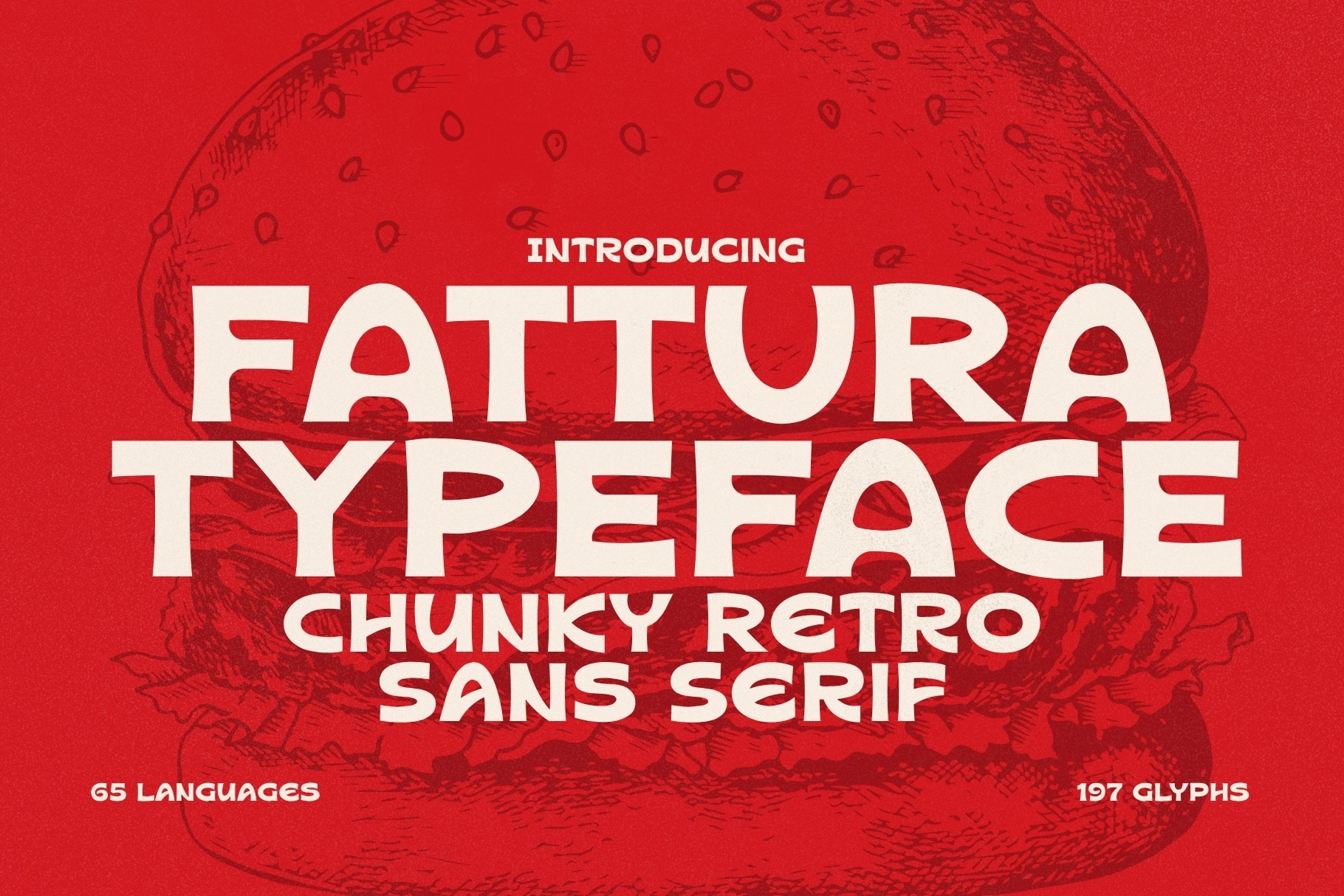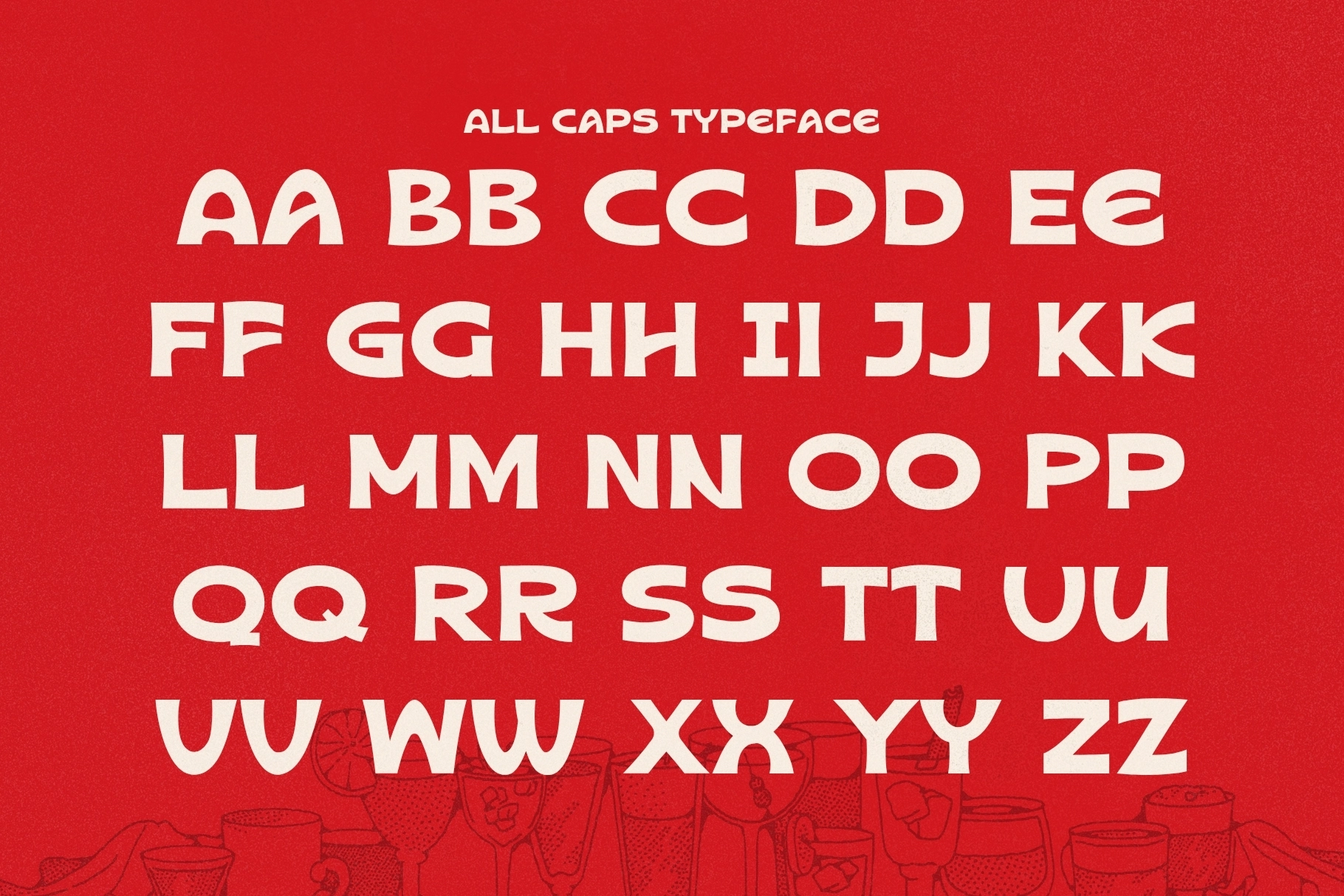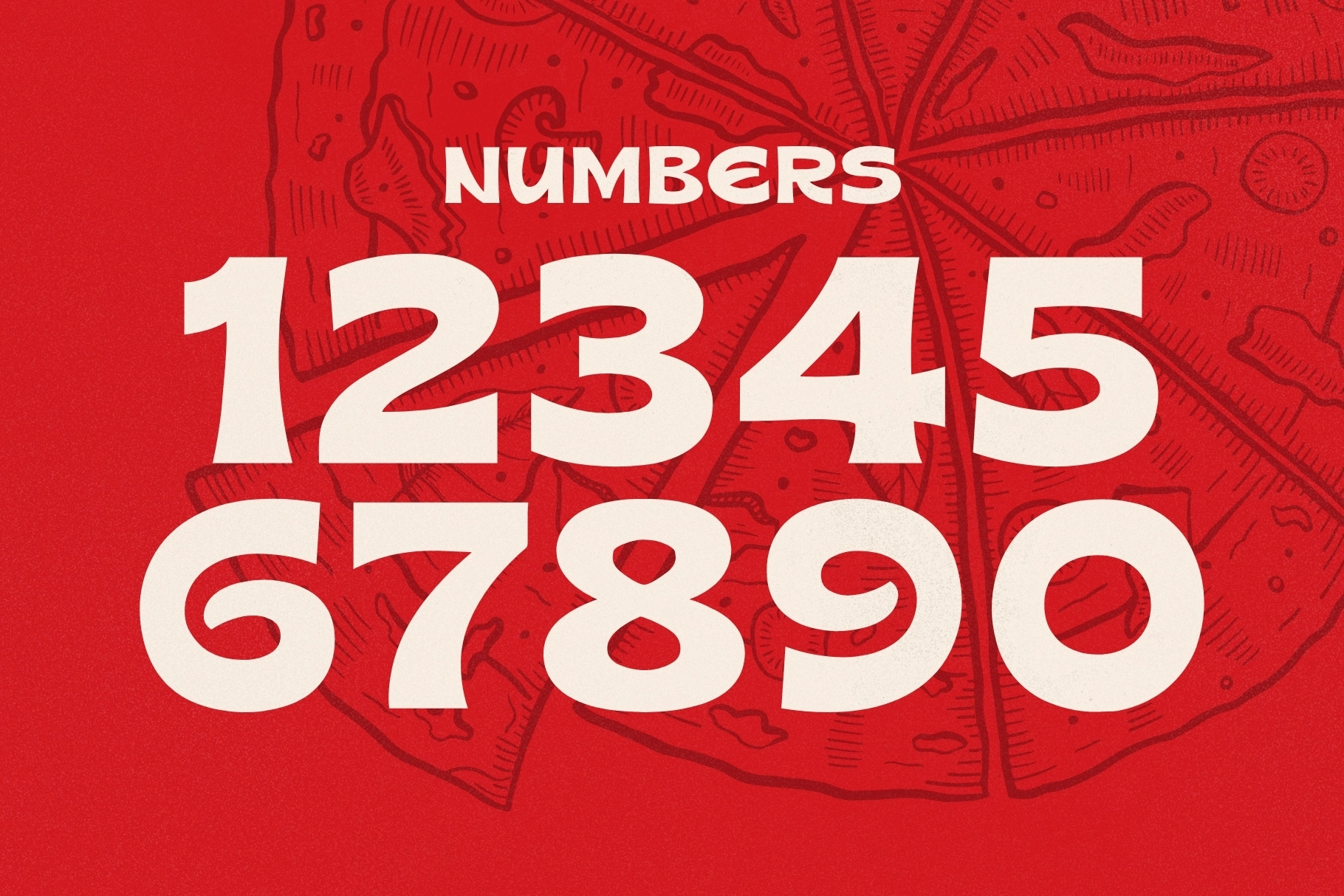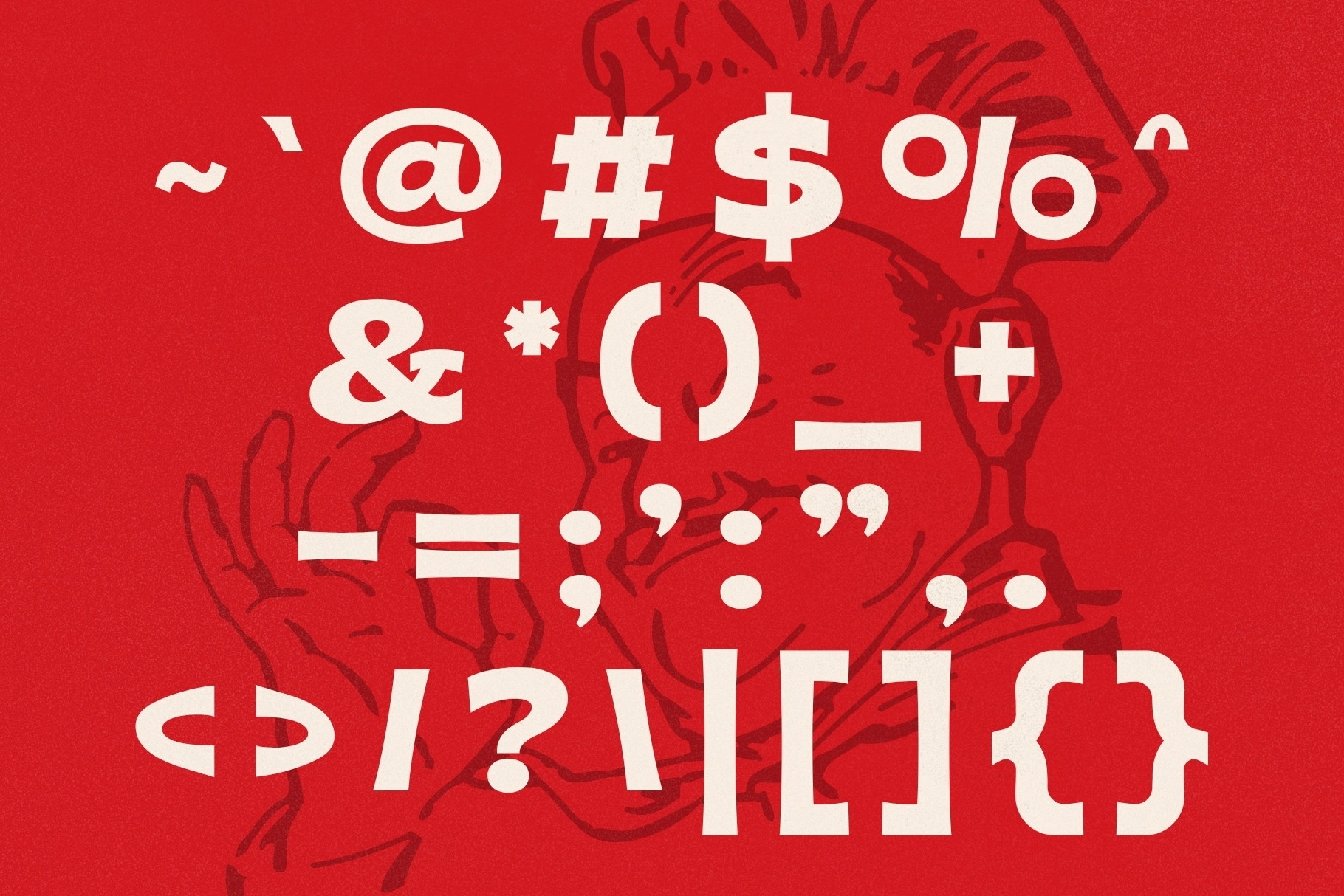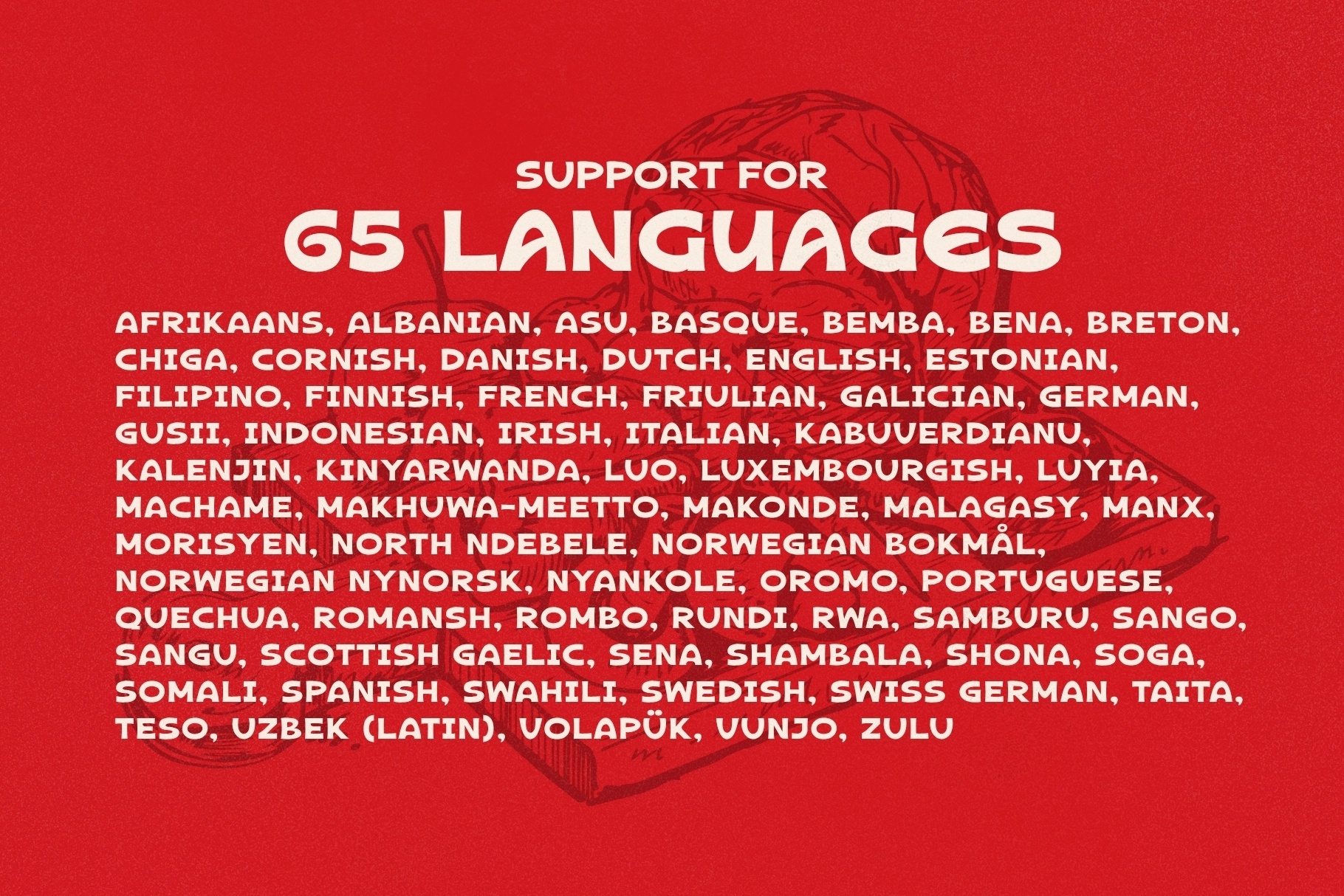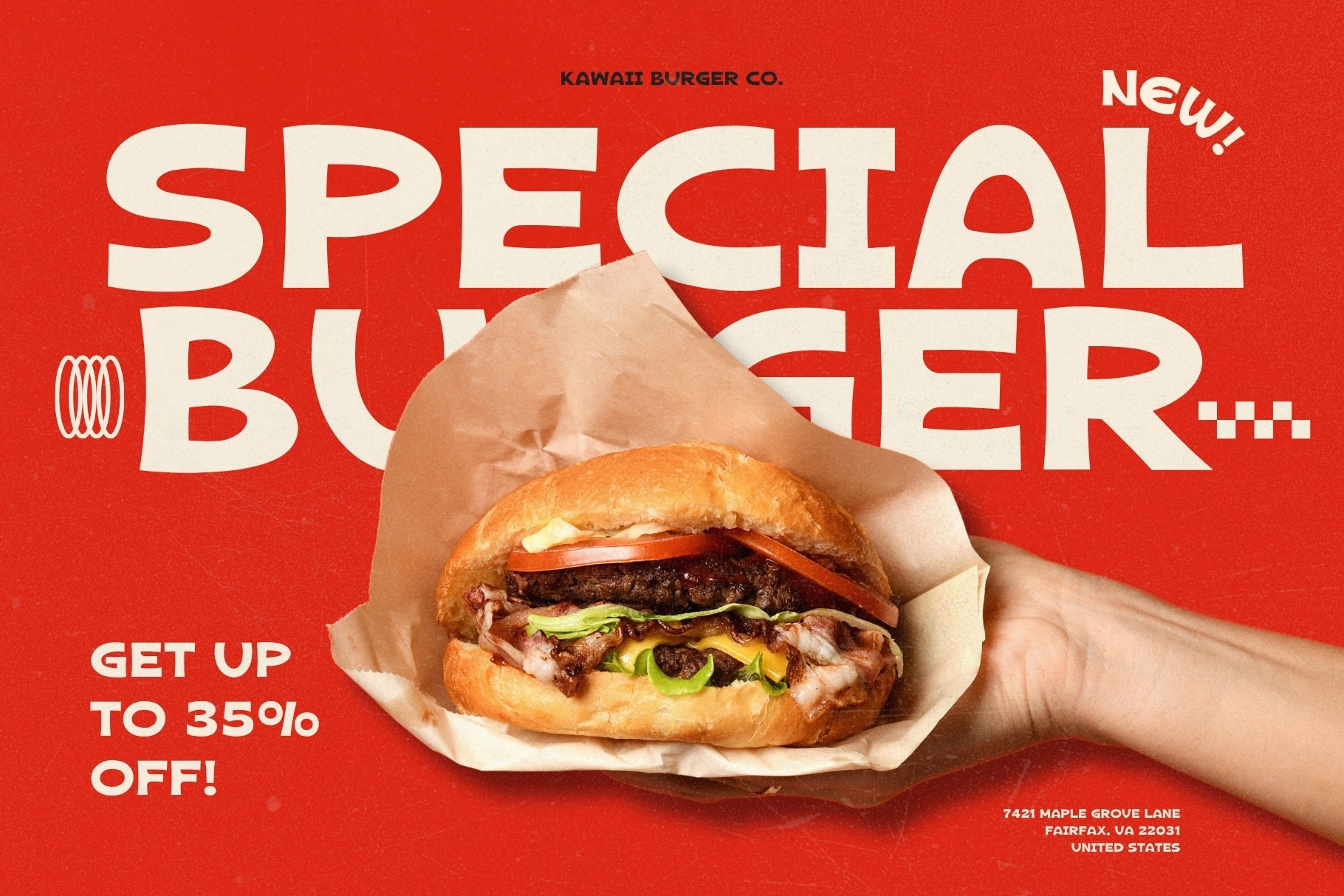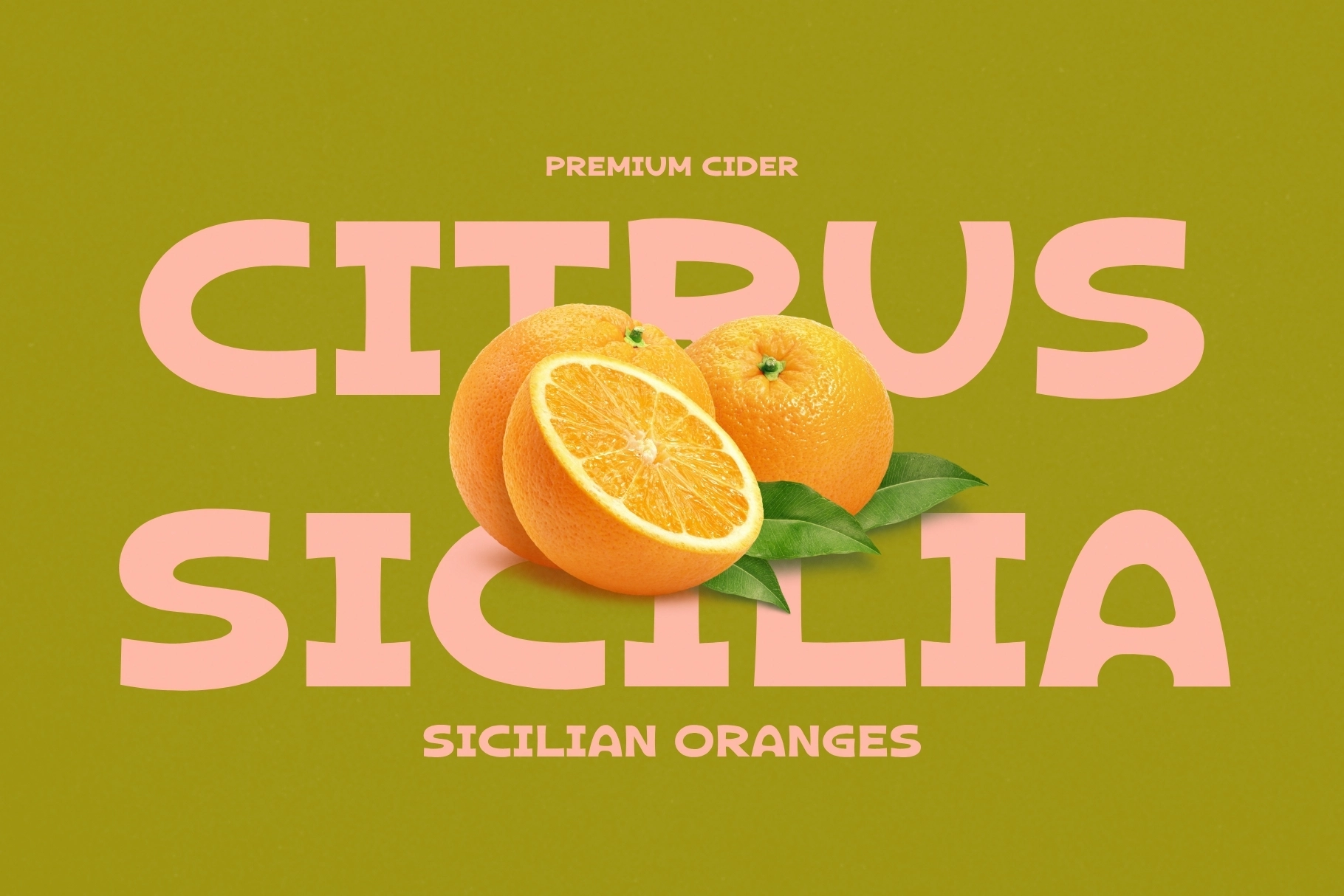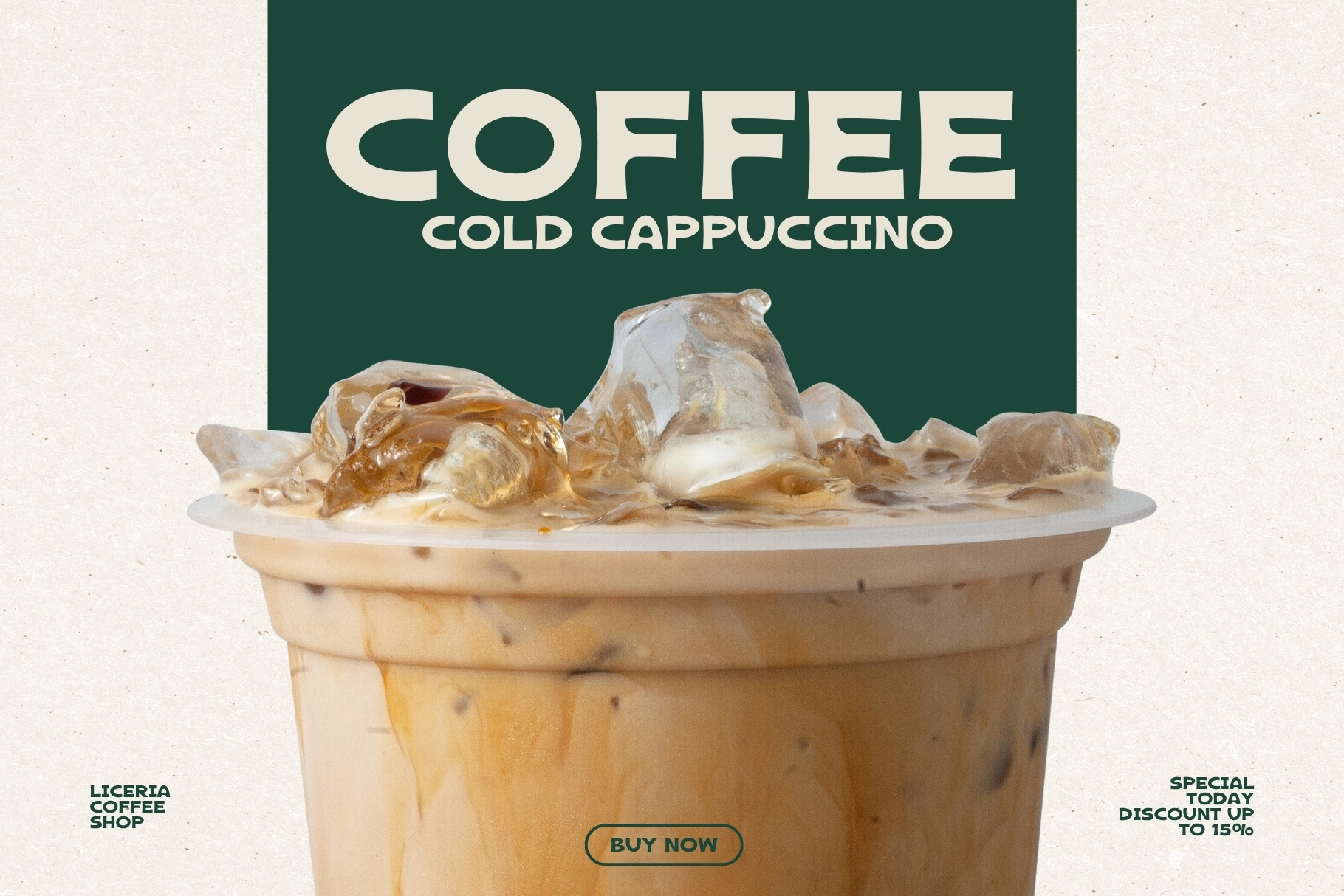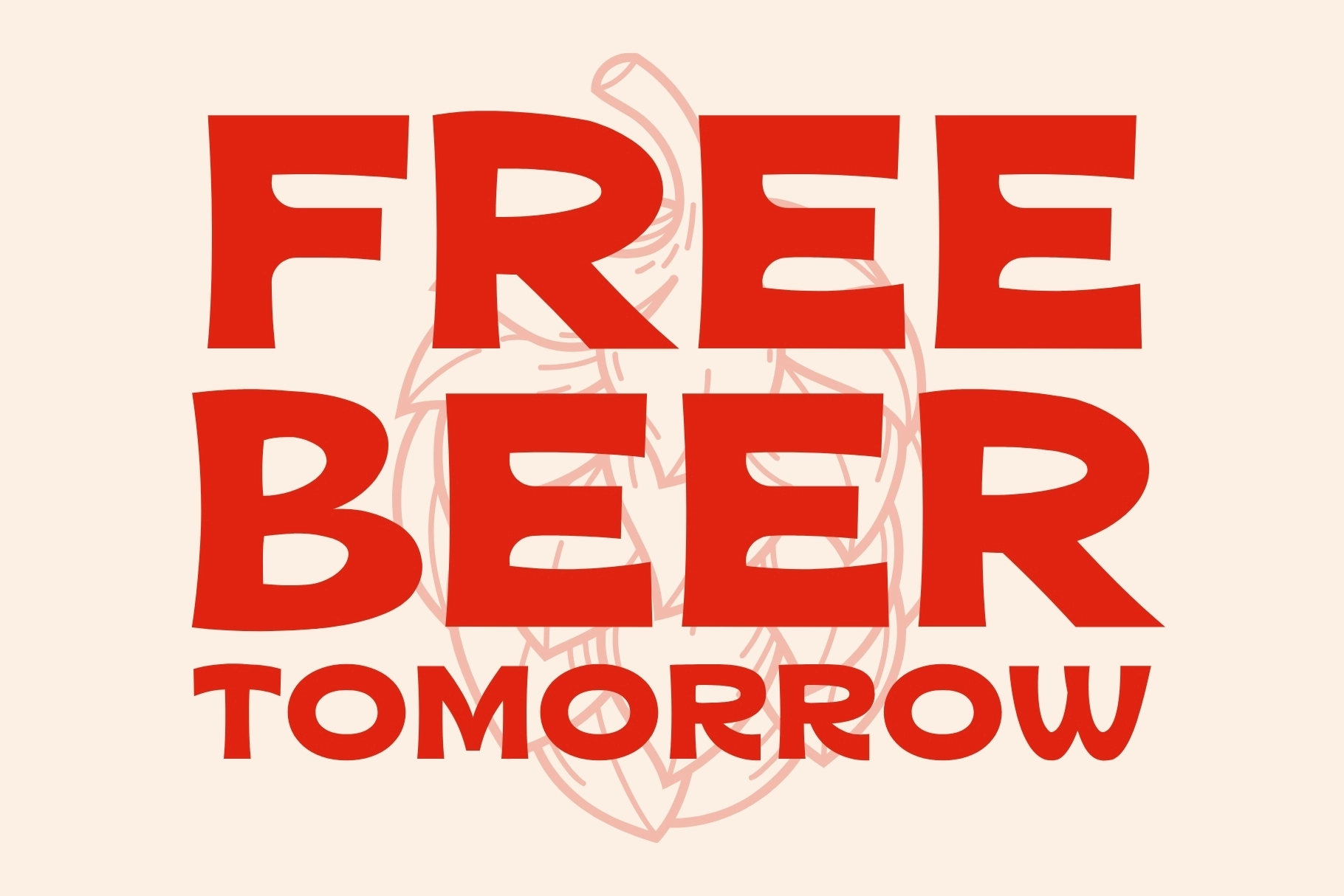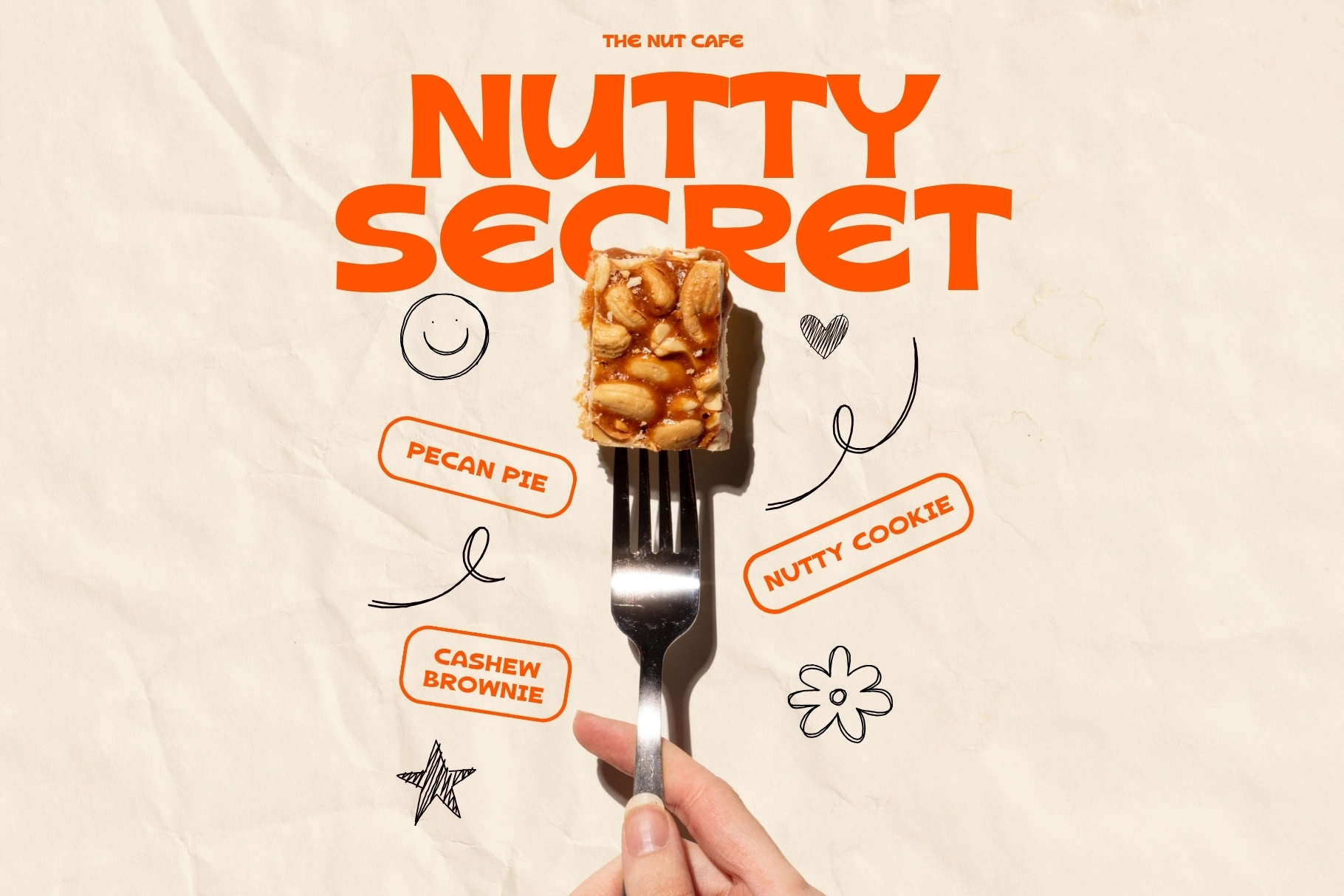
Fattura - Chunky Retro Sans Font
This retro sans serif is loud in the best way — wide, weighty, and cut with rounded corners that keep the heavy shapes easygoing instead of stiff. The all-caps letterforms have a poster-ready presence, with smooth curves, compact counters, and a hefty silhouette that holds its own across packaging, headlines, and identity work.
Fattura is a strong fit for burger branding, diner menus, food truck logos, album covers, poster design, apparel graphics, canned drink labels, YouTube thumbnails, social media campaigns, sticker packs, storefront signage, and editorial headlines. Its big personality is clear in oversized settings, but the character details keep it sharp enough for short taglines, punchy callouts, and display text that needs instant recognition.
- All caps typeface
- Chunky retro style
- Numbers and punctuation
- 197 glyphs
- Support for 65 languages